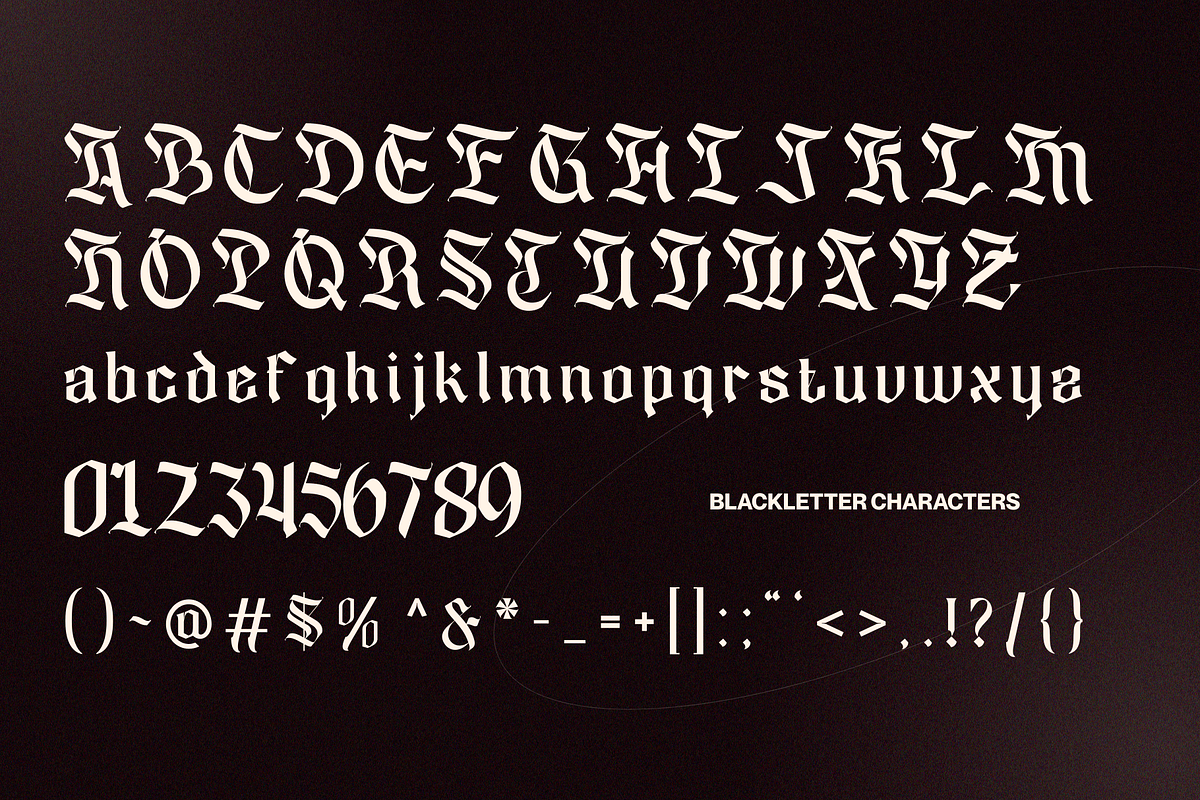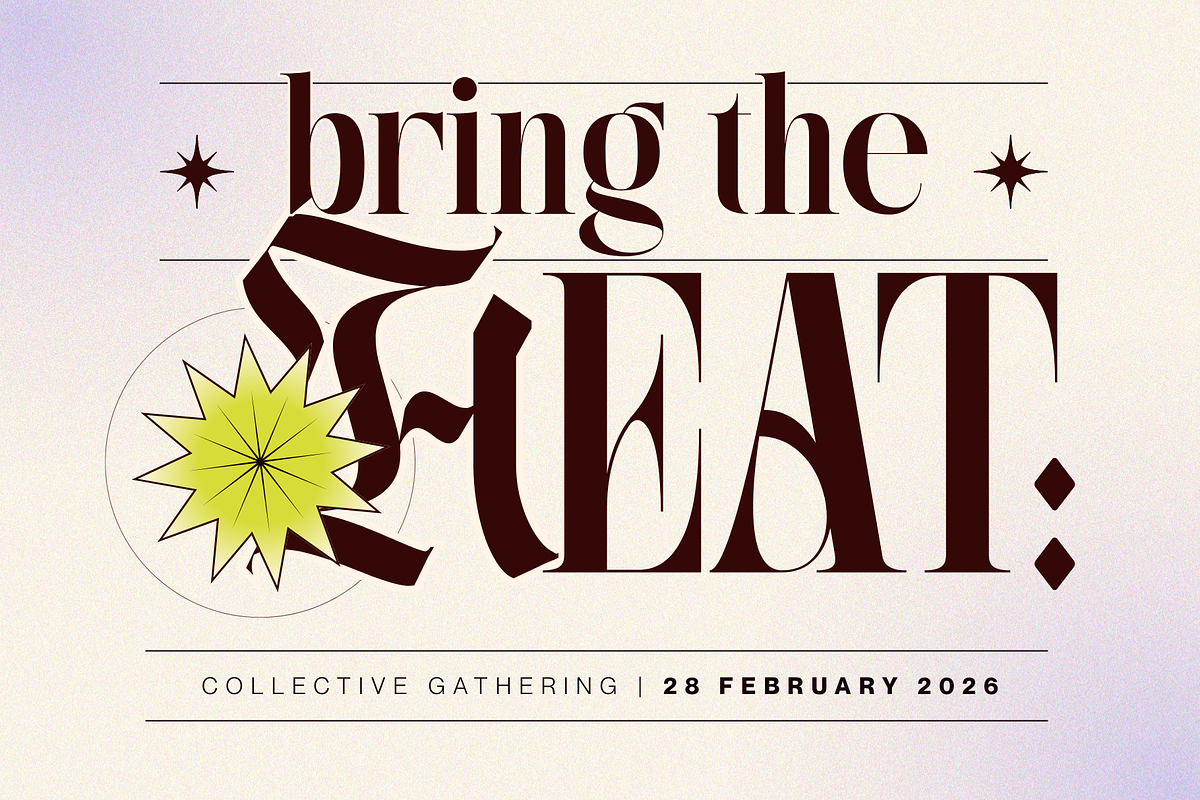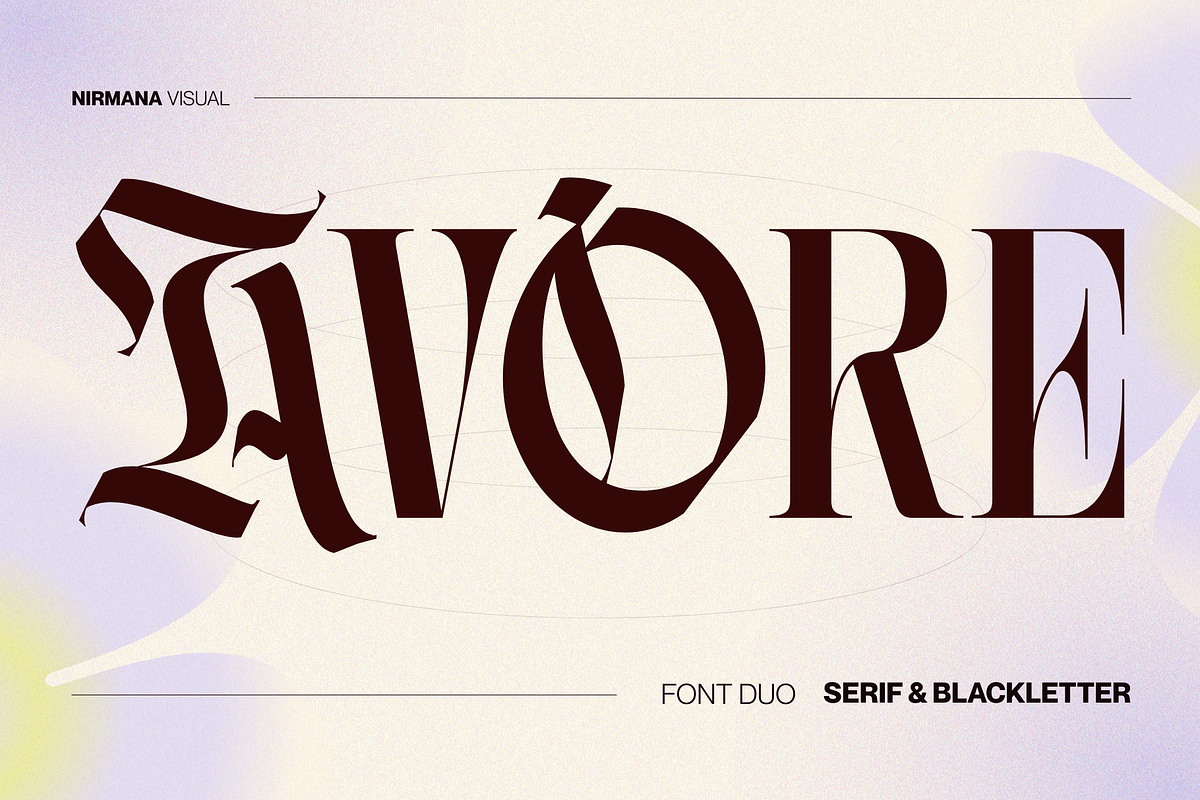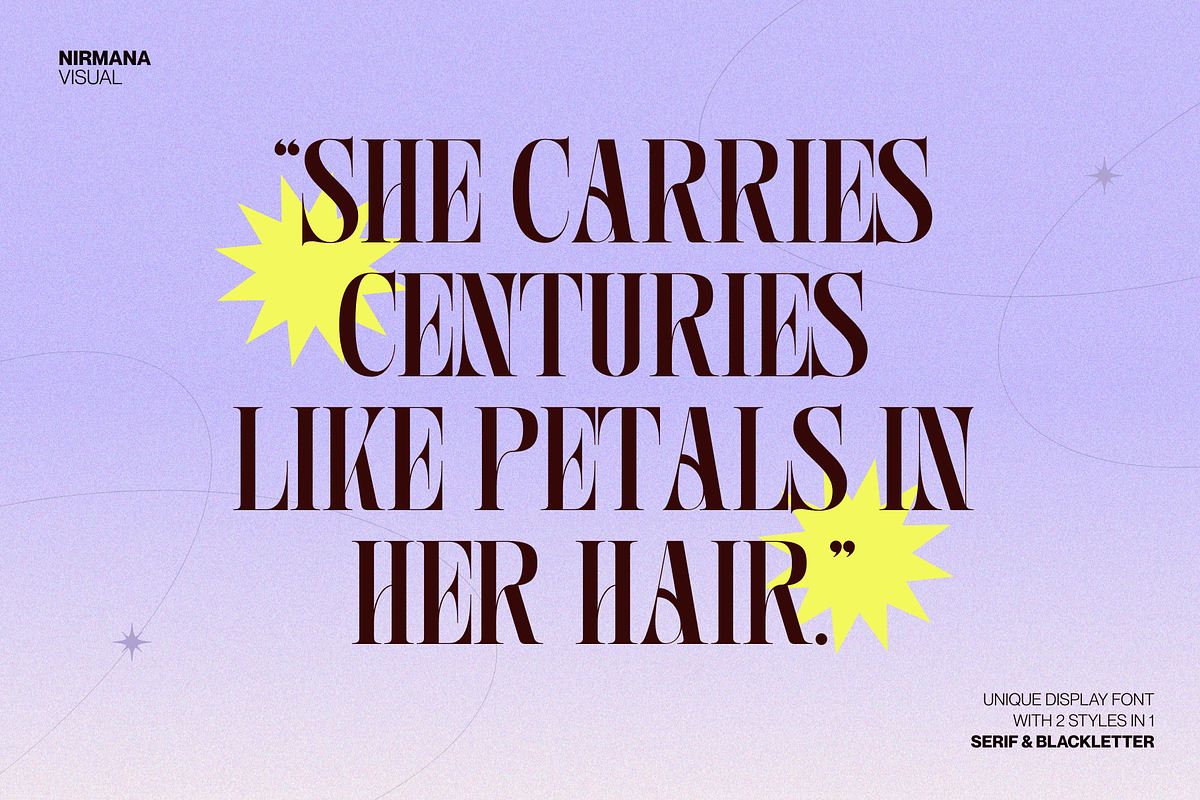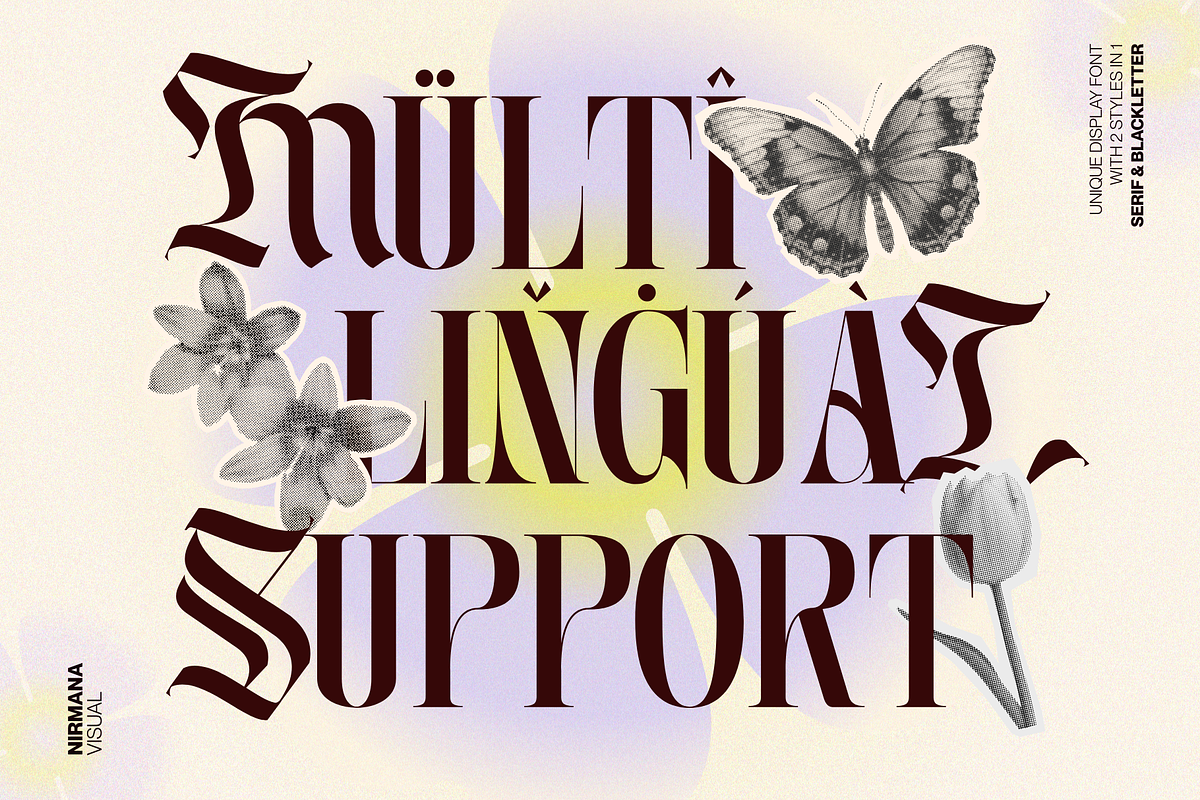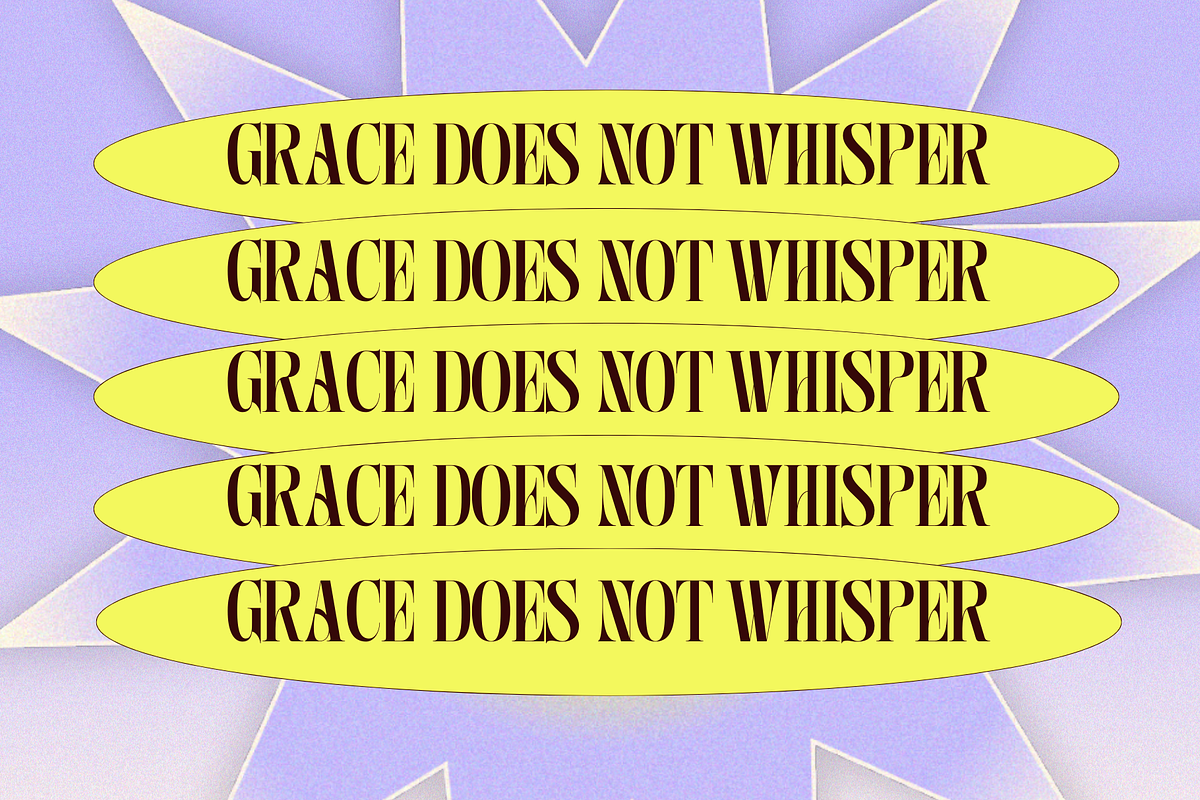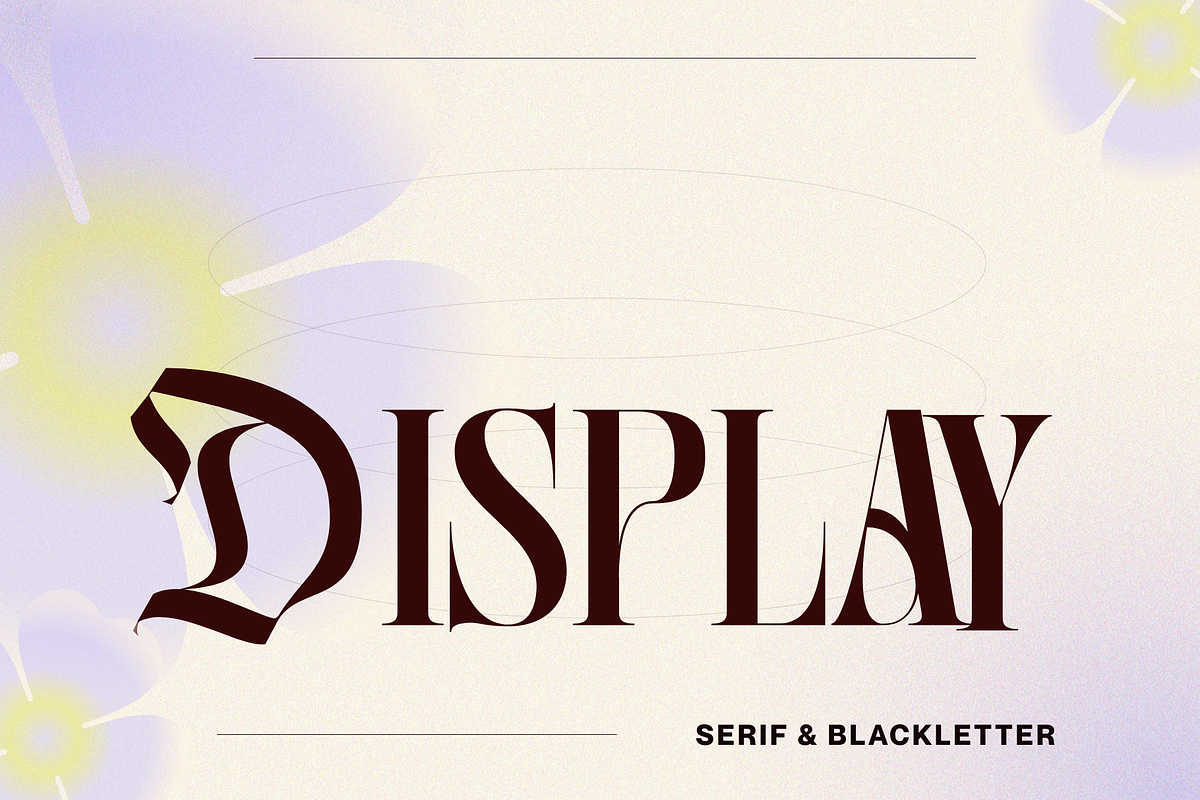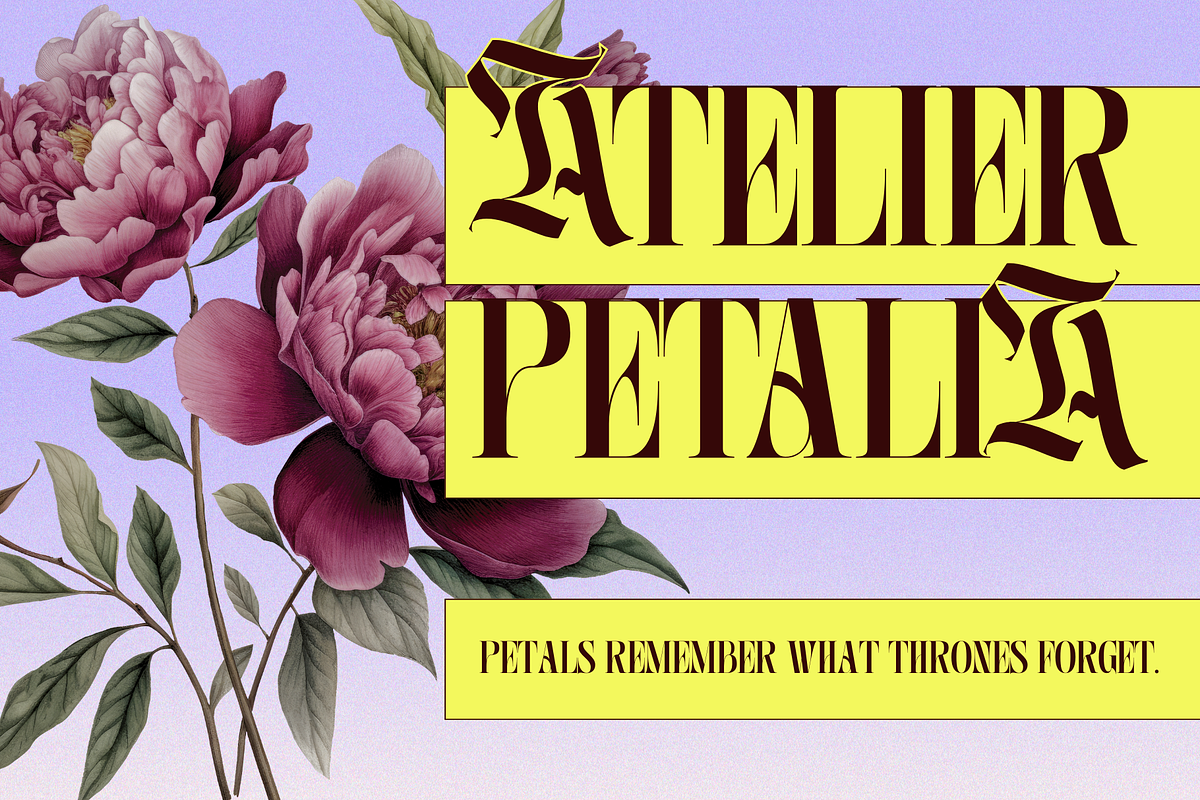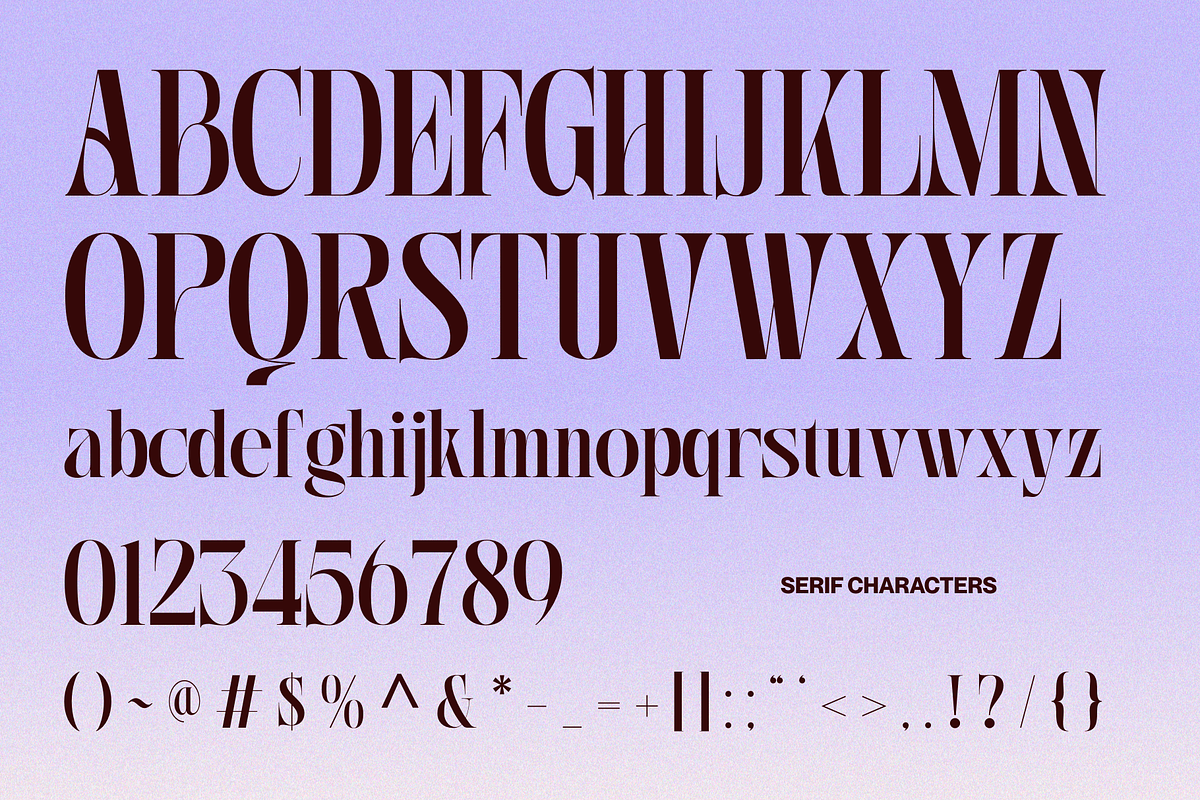
Avore - Font Duo Logo Branding
Avore is a refined Duo Font blending classic serif elegance with dramatic blackletter character. Designed for standout logo branding, Avore balances timeless sophistication and bold expression in one versatile type system. The serif style delivers clarity and luxury, while the blackletter adds heritage and edge—perfect for fashion, premium goods, editorial identities, and distinctive brand marks that demand attention and lasting impact.